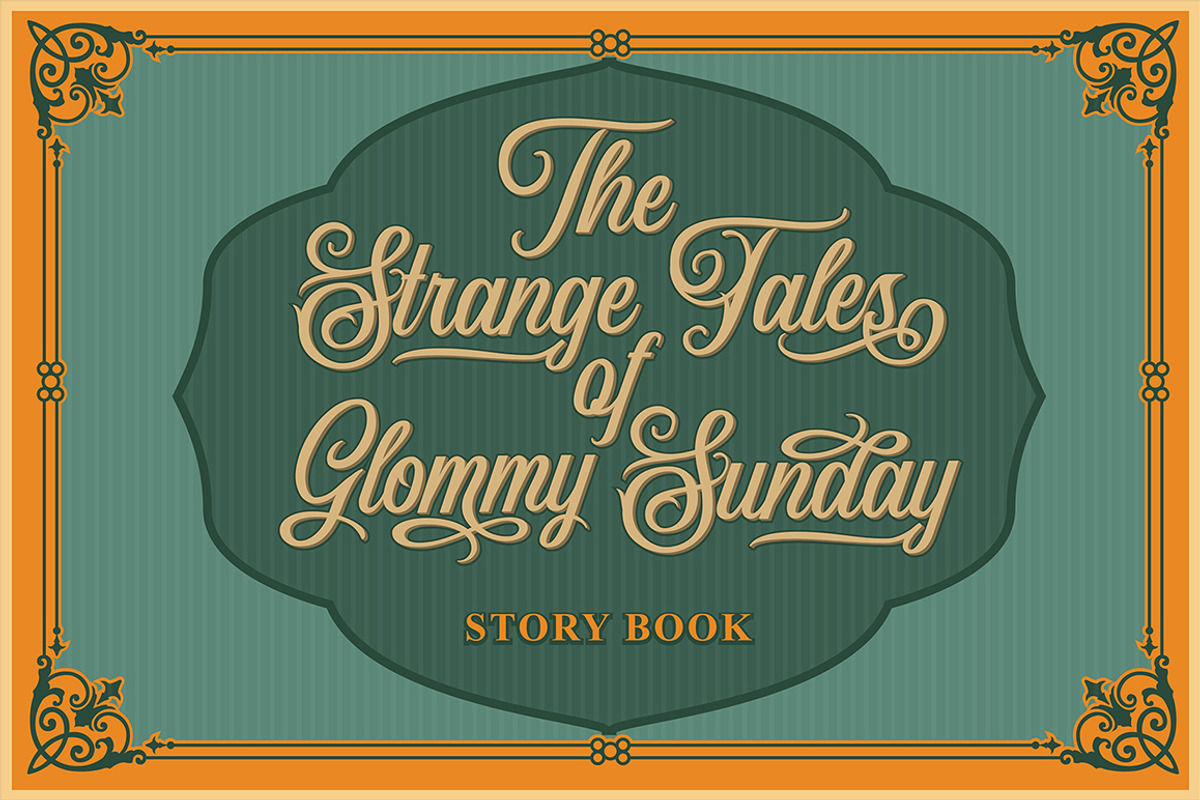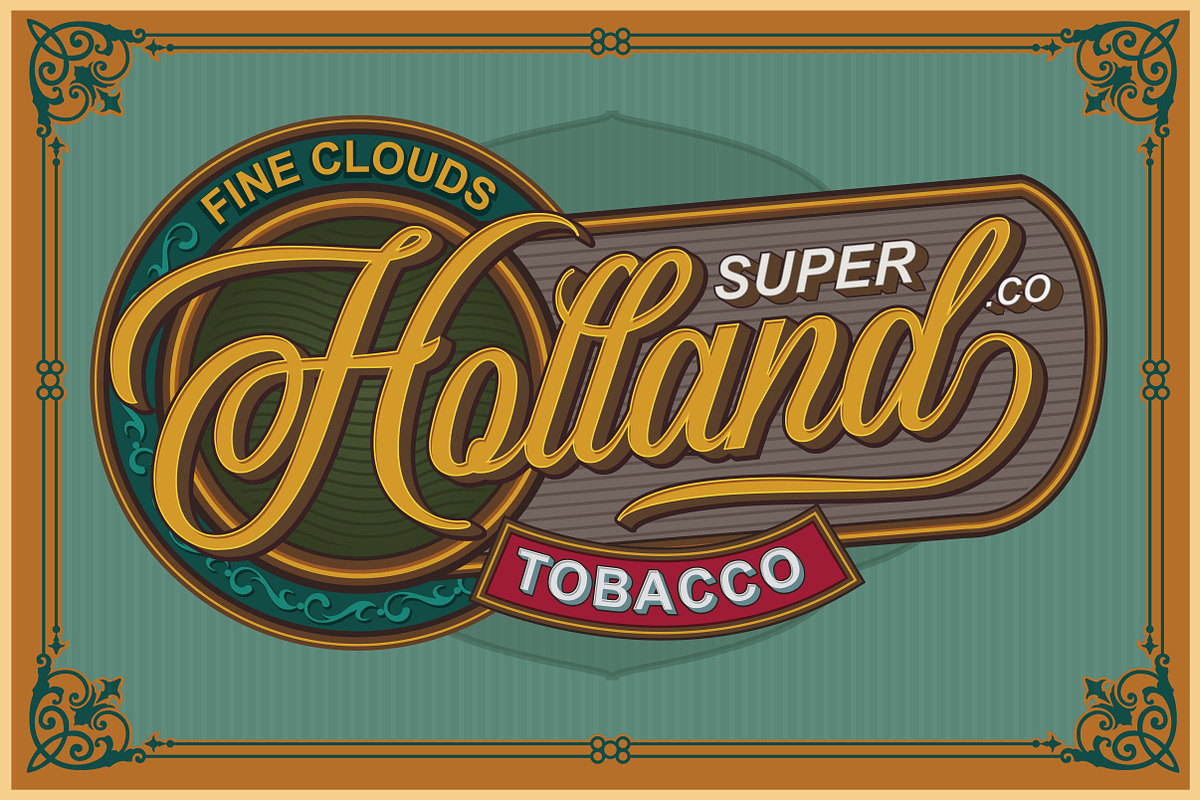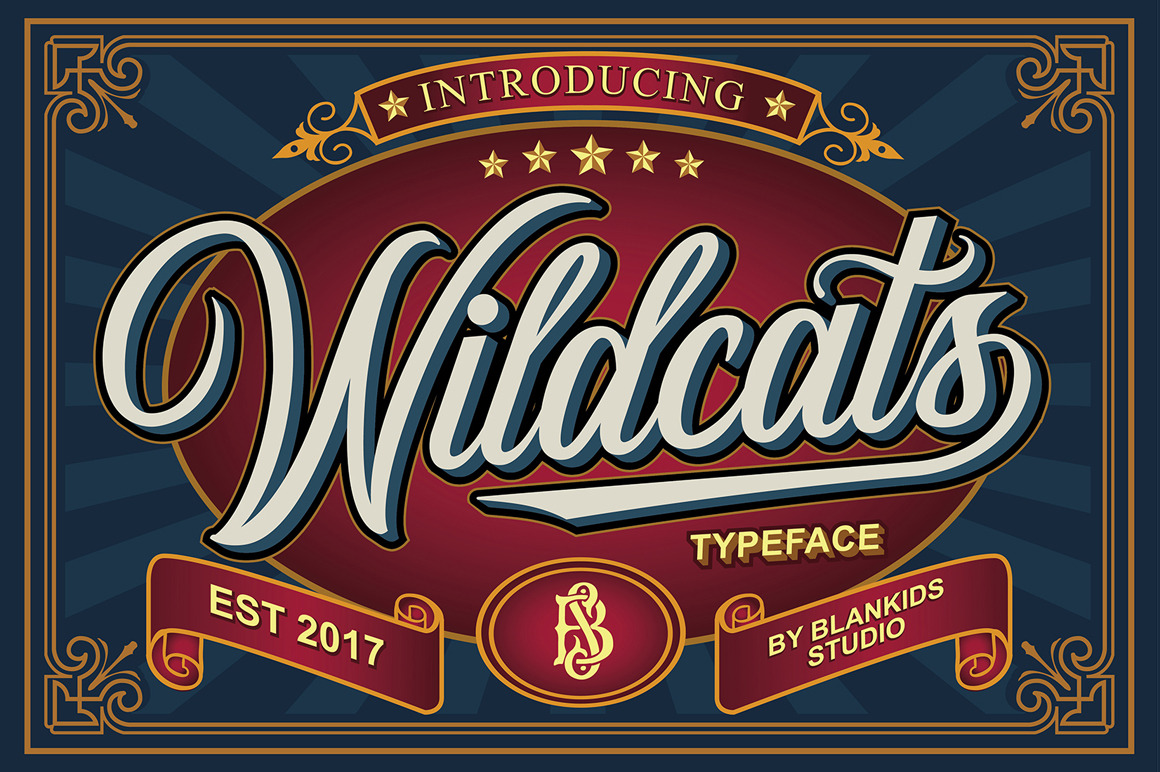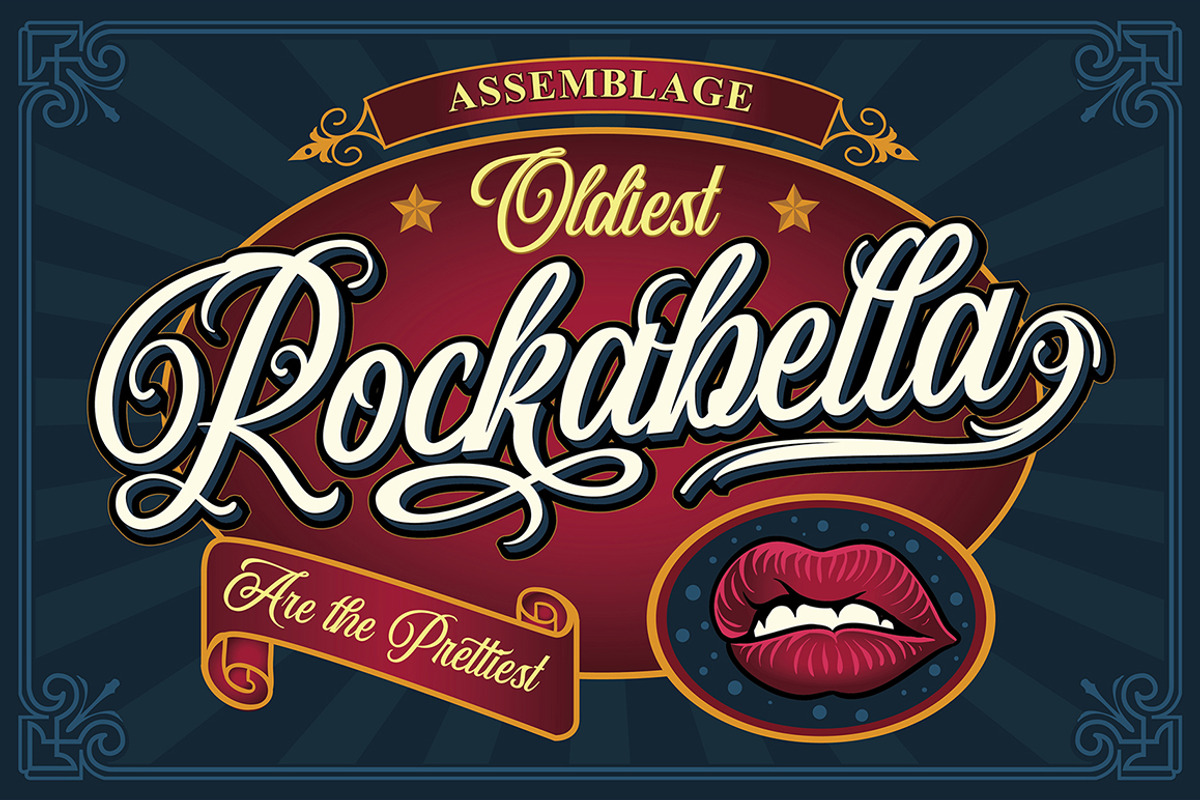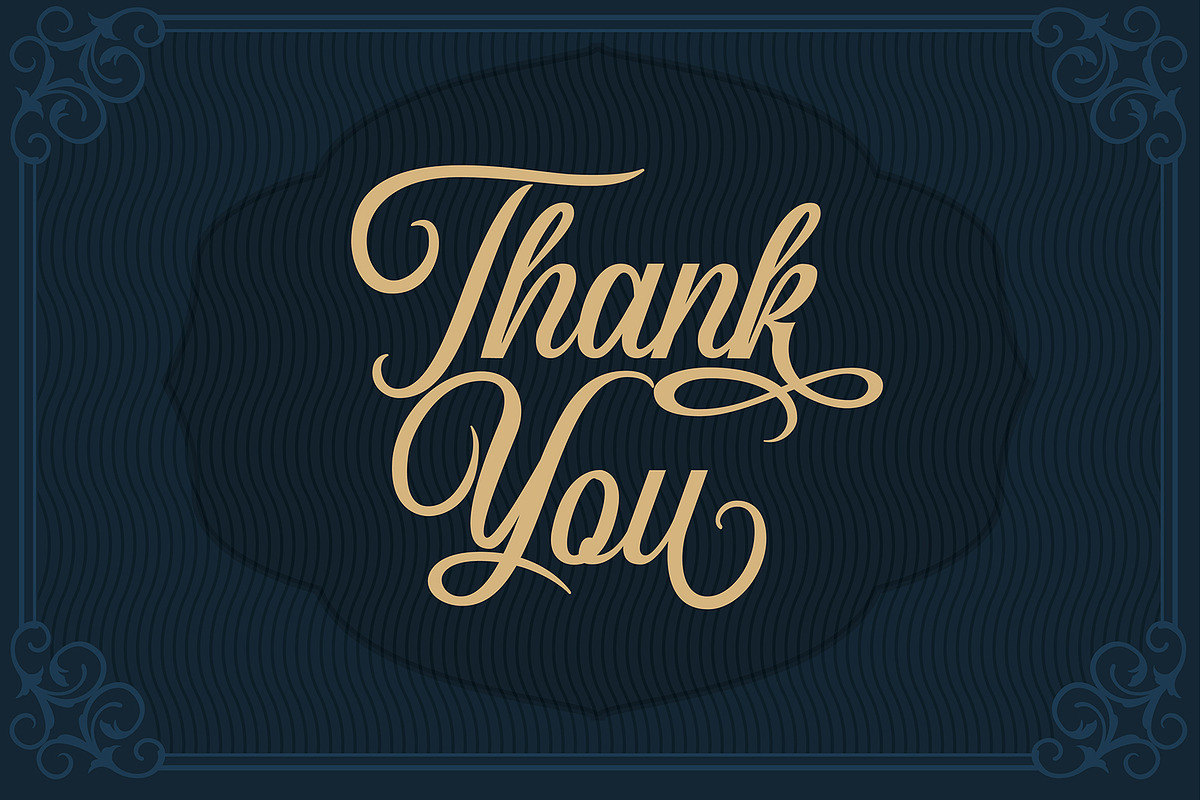
Wildcats Typeface
Wildcats Typeface is a vintage sexy calligraphy style. Wildcats inspired from vintage labels, signage and packages. Wildcats is good for logotype, tattoo typograph, signage, wedding invitation card design and any more. Wildcats have 453 Glyphs and many alternative character so you can mix and match like a you want, also you can get ornament pack on EPS file. 17 Mutilingual Support (Afrikaans, Albanian, Catalan, Danish, Dutch, English, Estonian, Finnish, French, German, Icelandic, Italian, Norwegian, Portugese, Spanisch, Swedish, Zulu)